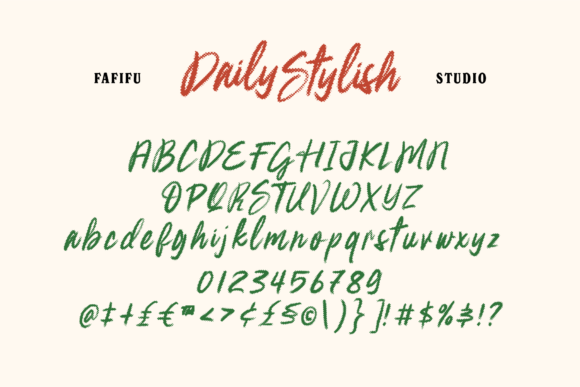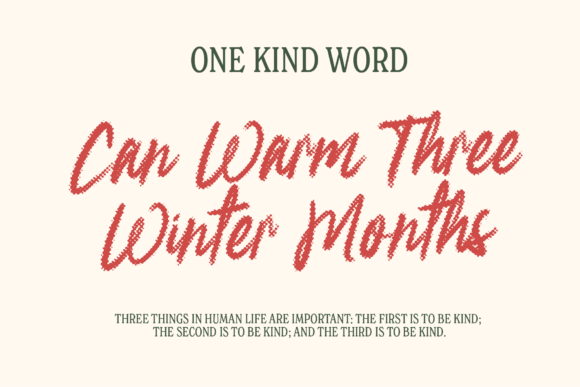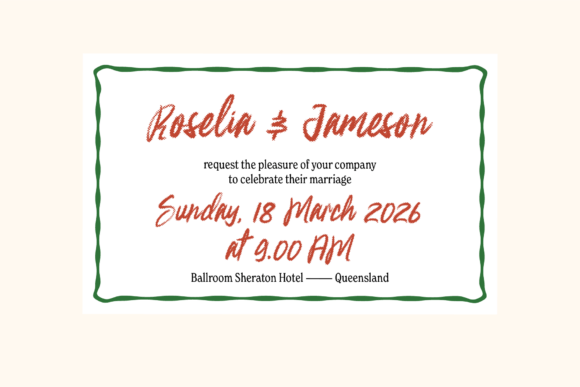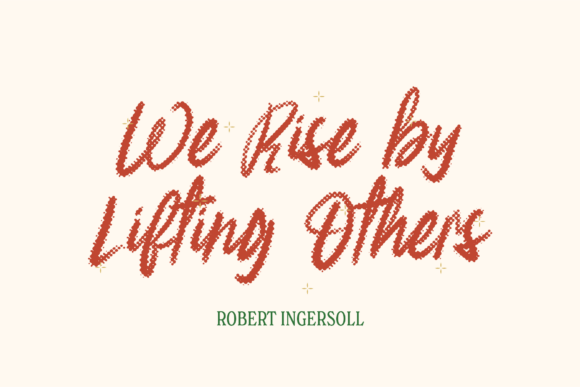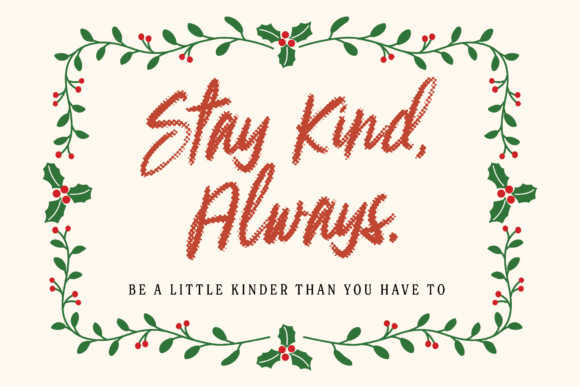
Introducing Daily Stylish Font: Elevate Your Designs with Timeless Elegance
In the world of design, fonts play a crucial role in conveying the tone and personality of a brand or project. If you’re looking for a sophisticated script font that seamlessly blends modern flair with timeless elegance, look no further than Daily Stylish. This beautiful font is crafted with fluid strokes and a natural handwritten feel, making it perfect for designers and crafters who want to add a touch of luxury and personality to their work.
What Makes Daily Stylish Font Special?
Daily Stylish is more than just a font – it’s a design statement. Its smooth lines, fluid strokes, and natural handwritten feel make it incredibly versatile and easy to use. Whether you’re working on high-end branding, wedding invitations, social media content, or merchandise, this font is designed to help you stand out from the crowd. With Daily Stylish, you can add a touch of sophistication and elegance to any project, making it perfect for designers and crafters who want to elevate their designs.
Daily Stylish is a versatile font that can be used for a wide range of design projects. Here are some of the perfect use cases for this beautiful font:
- Branding & Logos: Create a memorable identity for boutiques, lifestyle brands, or any business that wants to convey a sense of luxury and sophistication.
- Wedding Stationery: Add a romantic touch to invitations, save-the-dates, menus, and other wedding-related materials.
- Social Media: Perfect for Instagram quotes, YouTube thumbnails, Pinterest graphics, and other social media content that requires a touch of elegance.
- Merchandise: Looks stunning on t-shirts, mugs, tote bags, and other merchandise that requires a stylish and sophisticated font.
- Editorial Design: Ideal for magazine headings, book covers, and other editorial design projects that require a touch of luxury and elegance.
Why Choose Daily Stylish Font?
There are many reasons why Daily Stylish font stands out from other script fonts. Here are some of the key benefits of using this font:
- Easy to Read: Daily Stylish has smooth lines and a professional finish, making it incredibly easy to read and understand.
- Versatile: This font can be used for a wide range of design projects, from branding and logos to wedding stationery and social media content.
- Luxurious Feel: Daily Stylish has a luxurious feel that is perfect for designers and crafters who want to add a touch of sophistication to their work.
- High-Quality: This font is crafted with high-quality strokes and a natural handwritten feel, making it perfect for professional design projects.
Tips for Using Daily Stylish Font
Here are some tips for using Daily Stylish font in your design projects:
- Pair with Other Fonts: Daily Stylish pairs well with other fonts, so feel free to experiment with different font combinations to find the perfect look for your project.
- Use for Headings: This font is perfect for headings and titles, so use it to add a touch of elegance to your design projects.
- Experiment with Colors: Daily Stylish looks great in a variety of colors, so don’t be afraid to experiment with different colors to find the perfect look for your project.
In conclusion, Daily Stylish font is a sophisticated script font that perfectly blends modern flair with timeless elegance. With its fluid strokes, natural handwritten feel, and luxurious feel, this font is perfect for designers and crafters who want to elevate their designs. Whether you’re working on branding and logos, wedding stationery, social media content, or merchandise, Daily Stylish is a versatile font that can help you stand out from the crowd. So why wait? Download Daily Stylish font today and start creating stunning designs that exude elegance and sophistication.